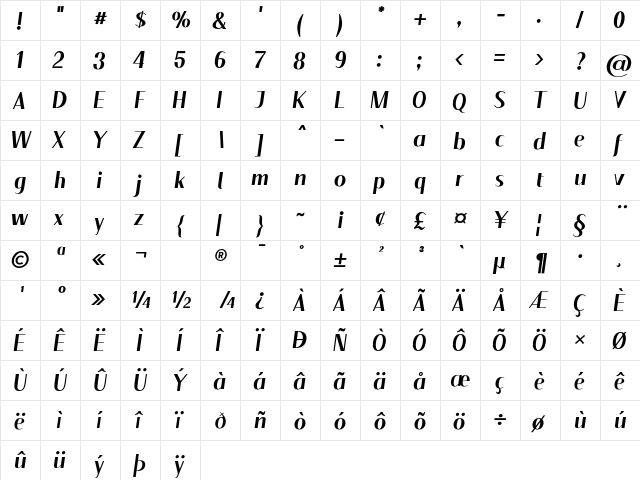
Floane Bold Italic
Design Context for Floane Typeface
Floane takes a measured approach to typography — its balanced proportions and neutral character make it a reliable workhorse for both digital and print work. Its italic angle brings a sense of urgency and motion to the letterforms. Its bold stroke weight gives it real presence on the page.
Pro Tip: Try Floane for annotation and caption copy alongside an upright companion — the contrast in angle creates a dynamic but ordered typographic system.